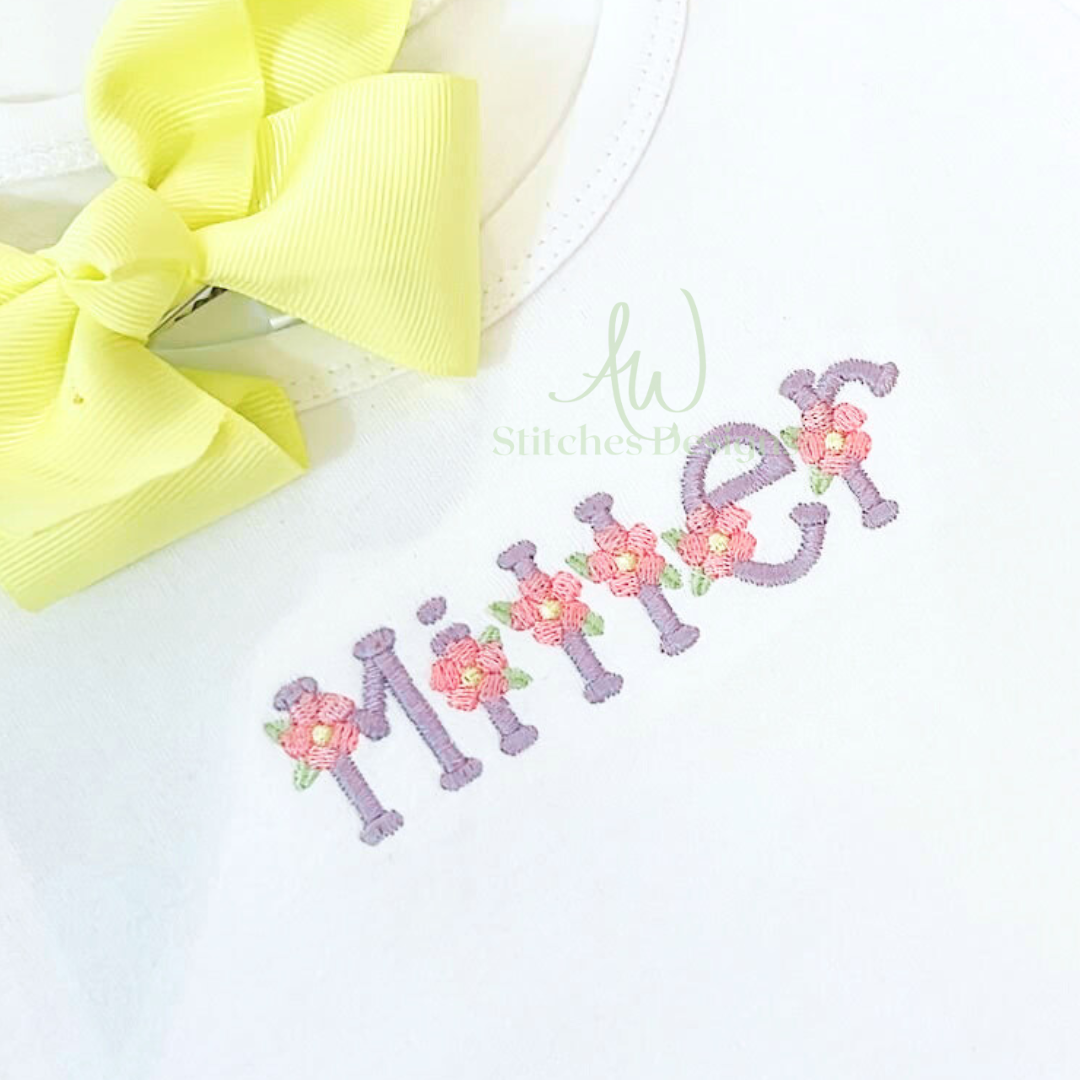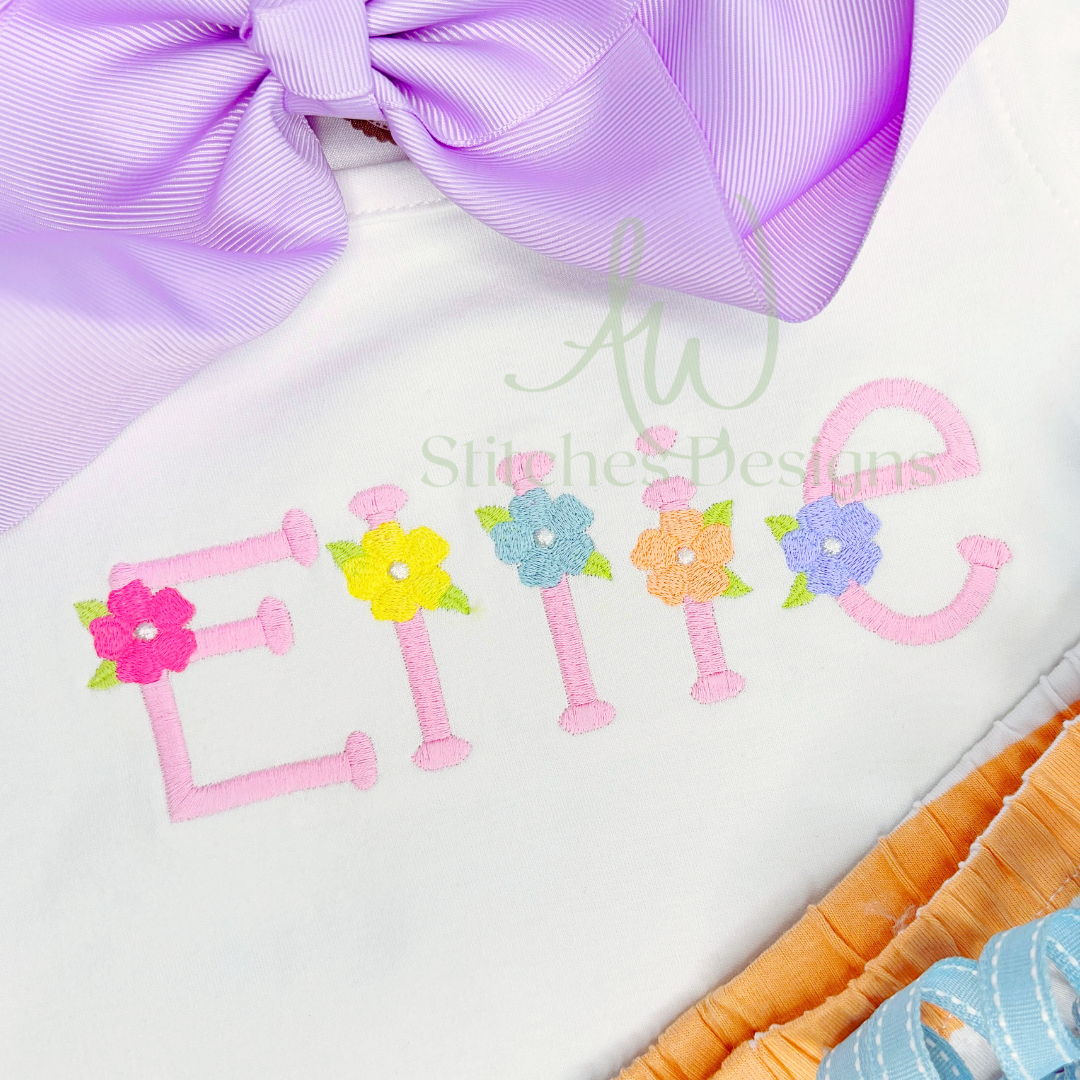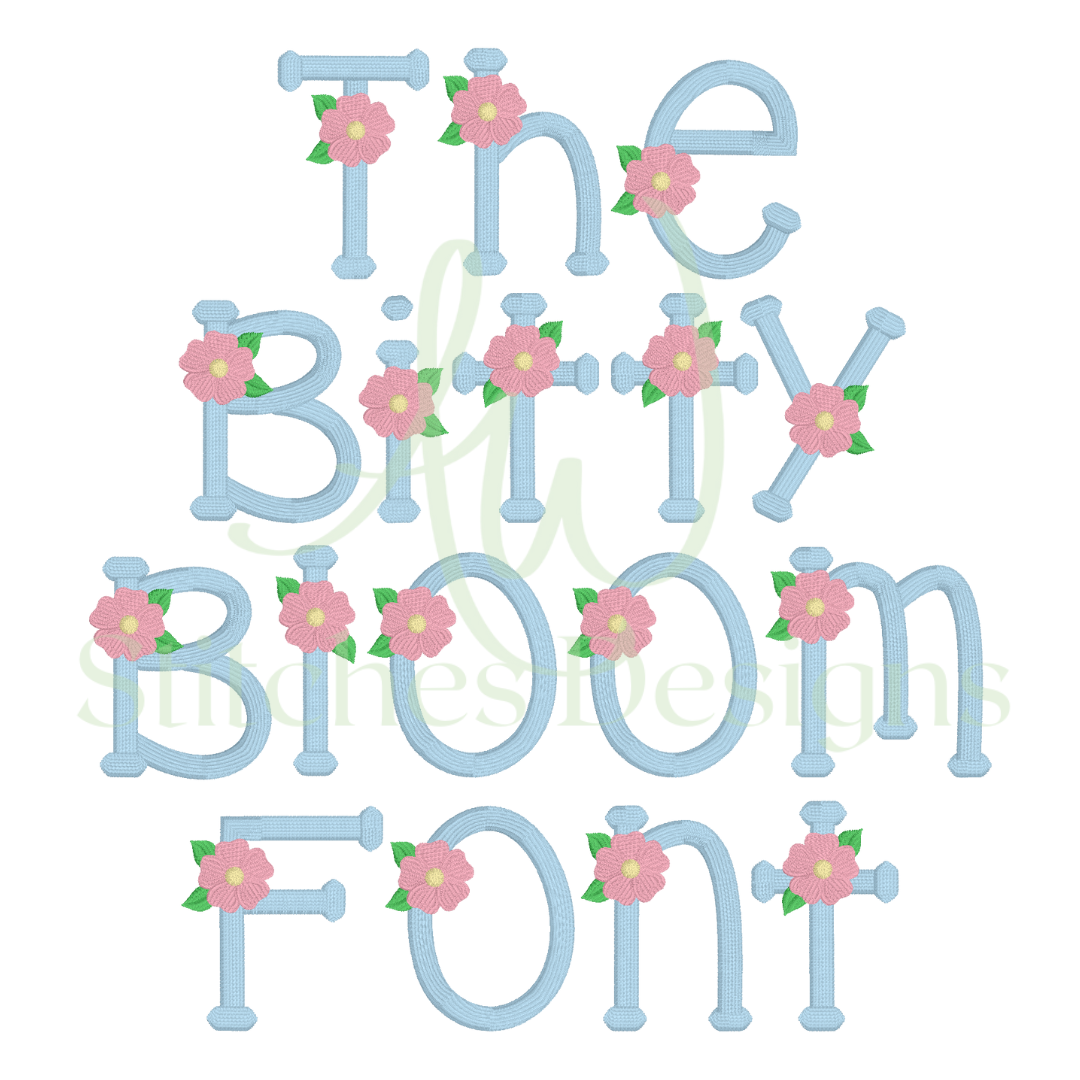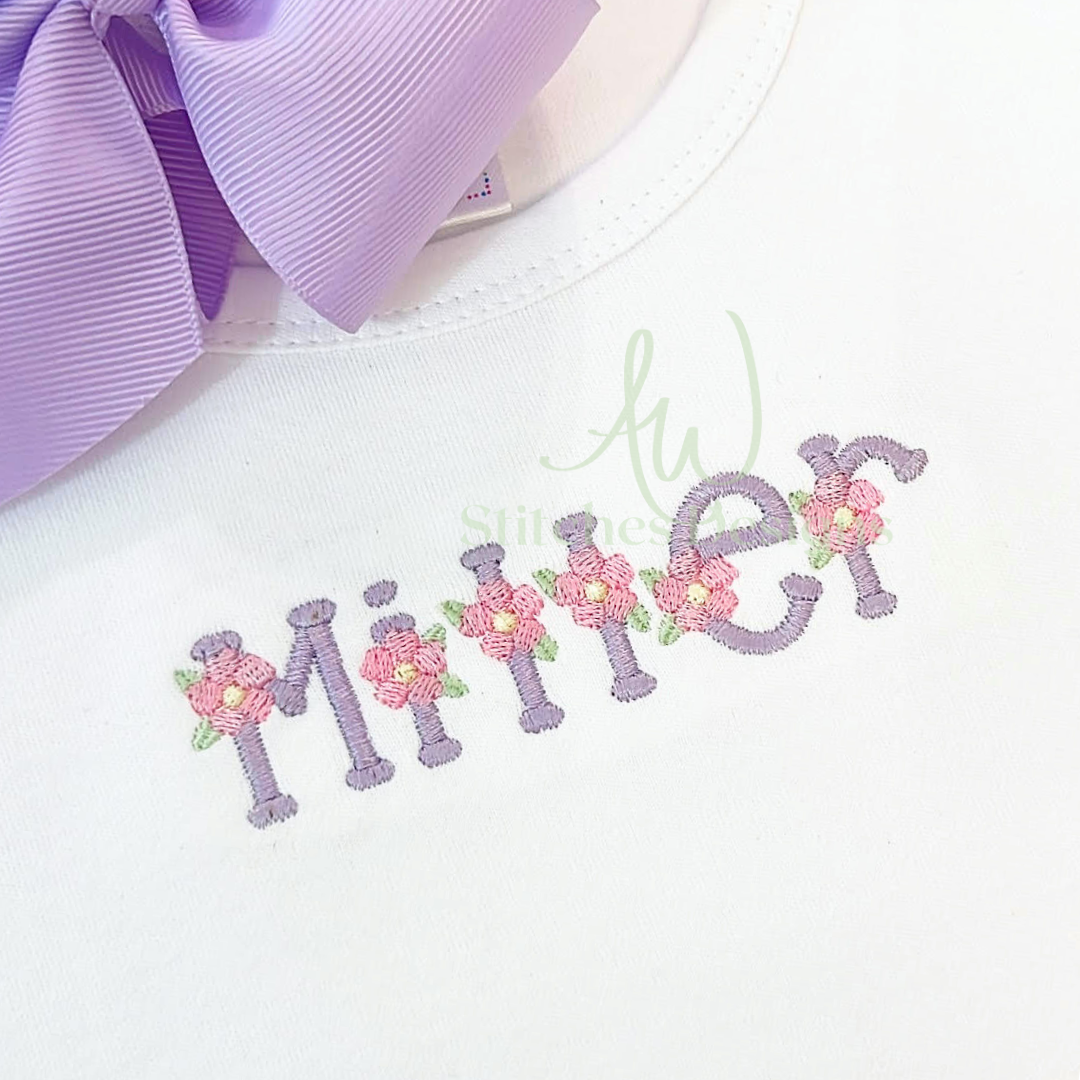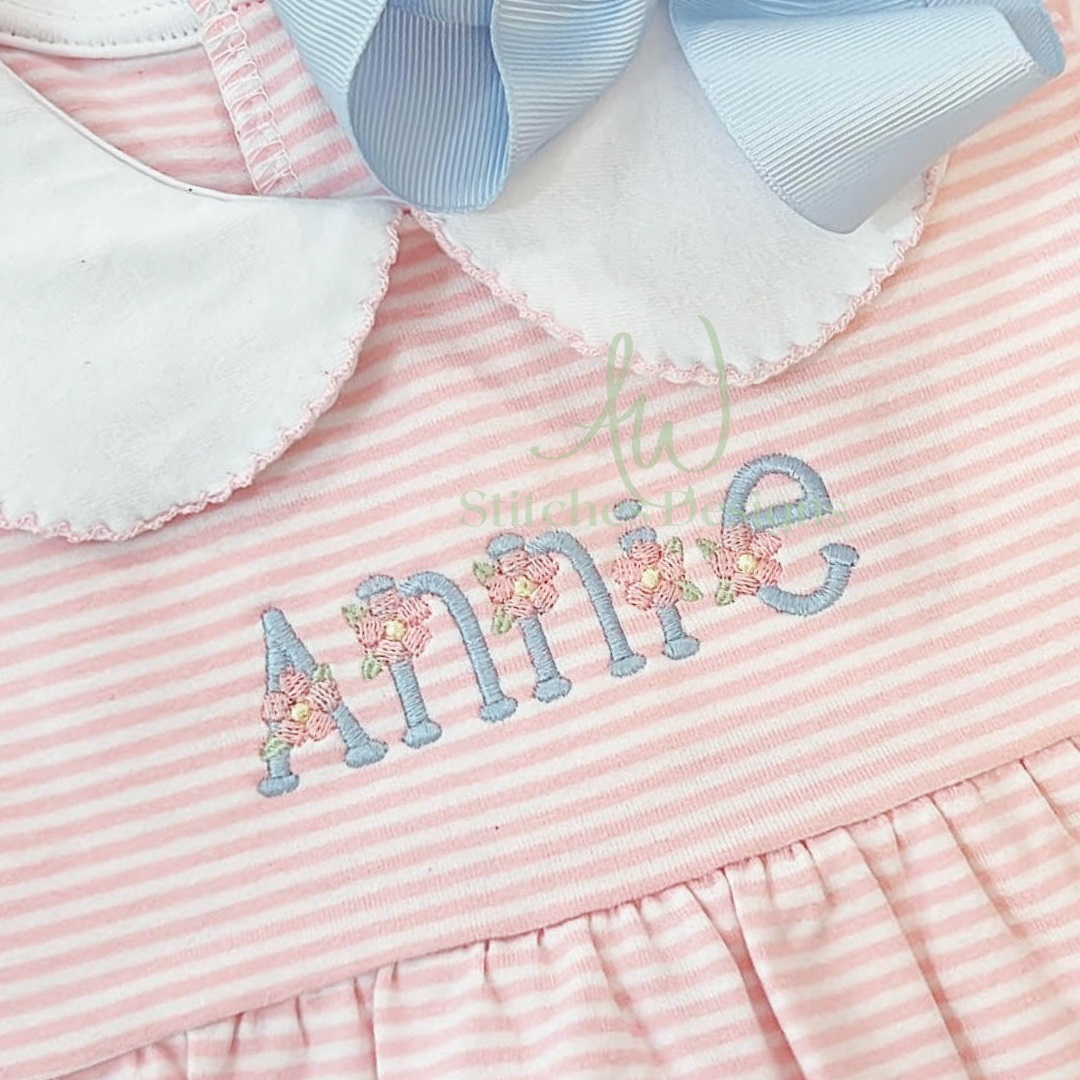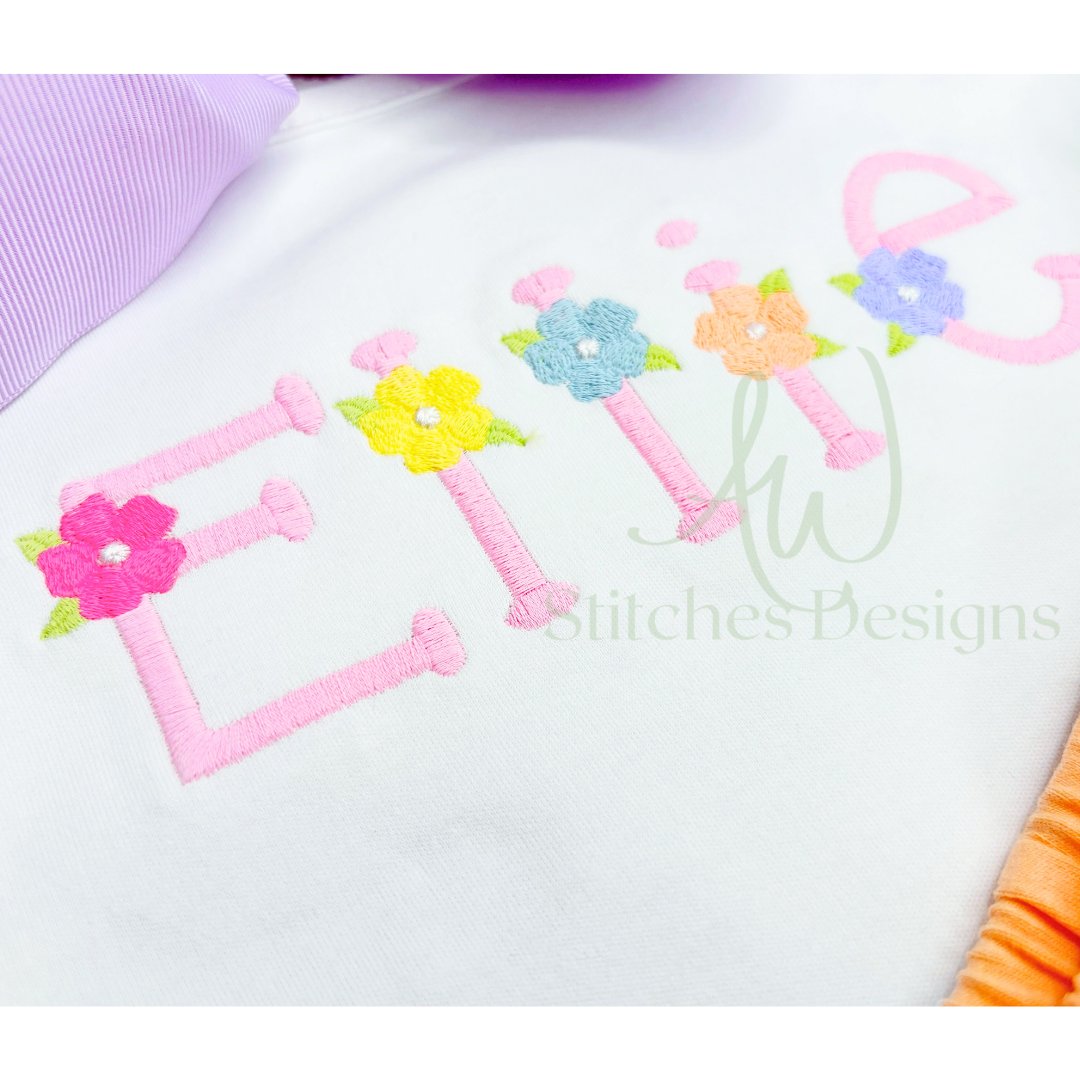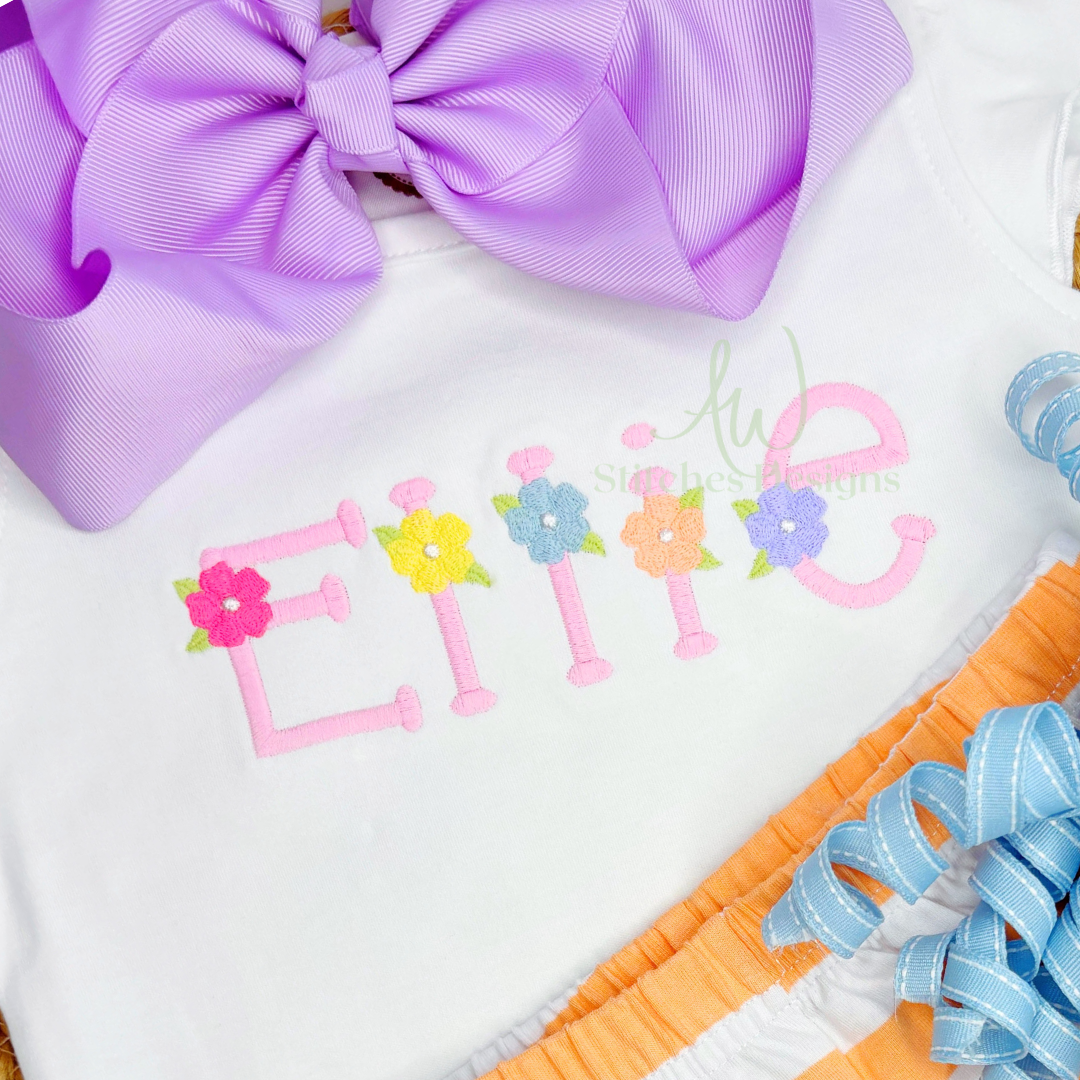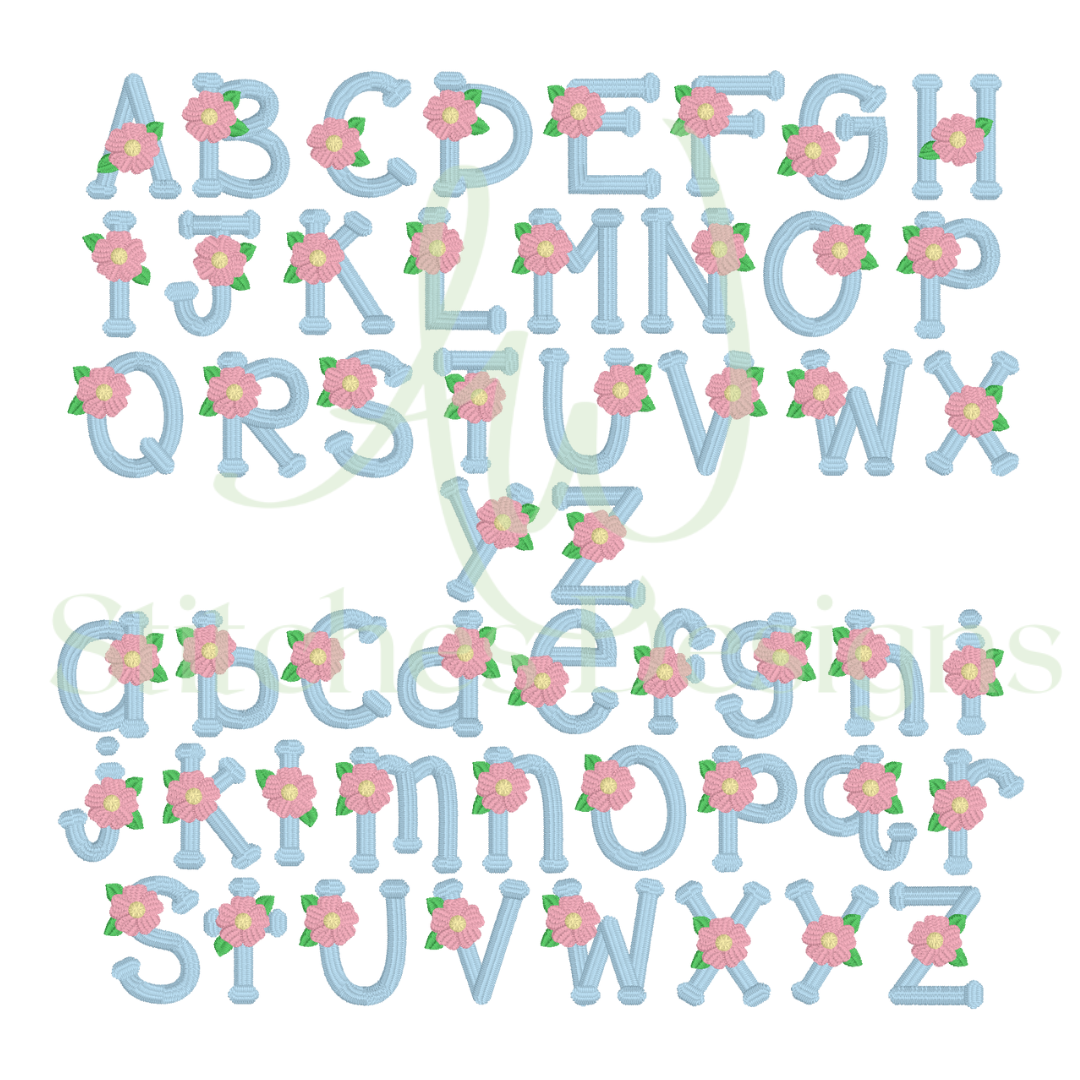
Bitty bloom font
The bitty bloom satin stitch font for machine embroidery design file 1"- 2.5" upper and lowercase letters with BX.
-26 lower and upper case letters A through Z